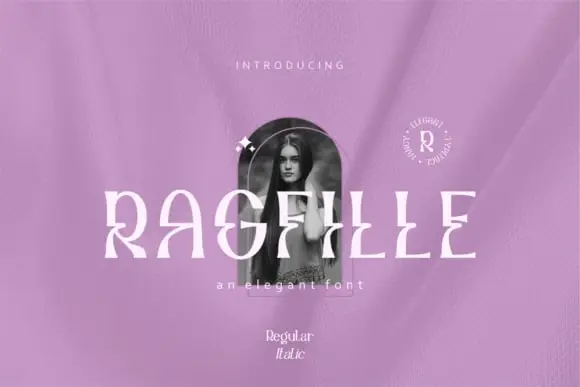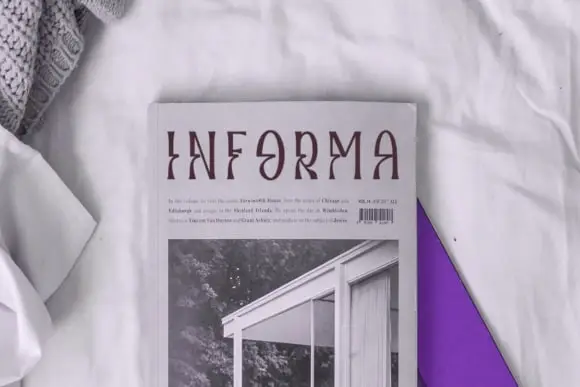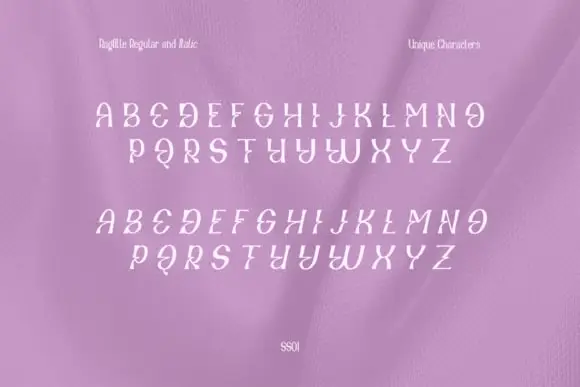
Ragfille Font
Introducing the Ragfille Font, a beautifully crafted typeface that combines elegance with a modern touch. This font is perfect for a variety of applications, including branding, logos, web design, print materials, and user interfaces.
• Ideal for creating eye-catching headlines and titles
• Use in branding projects to convey a modern aesthetic
• Perfect for both digital and print applications